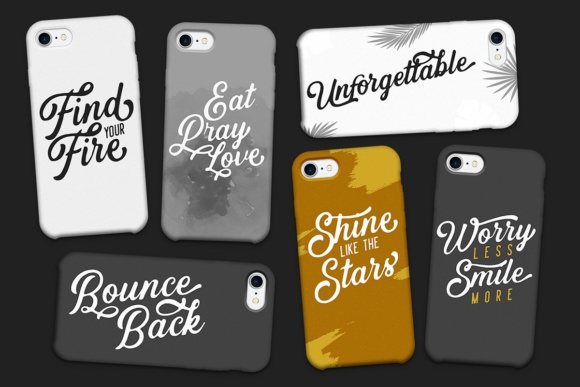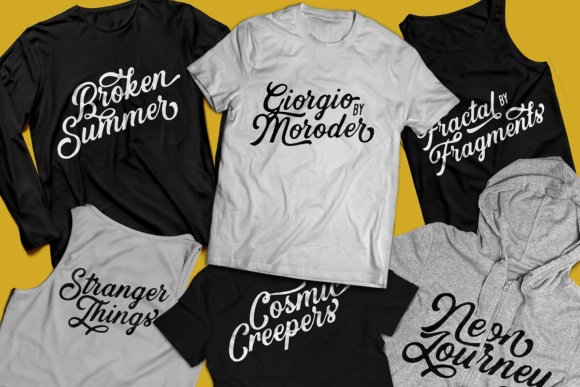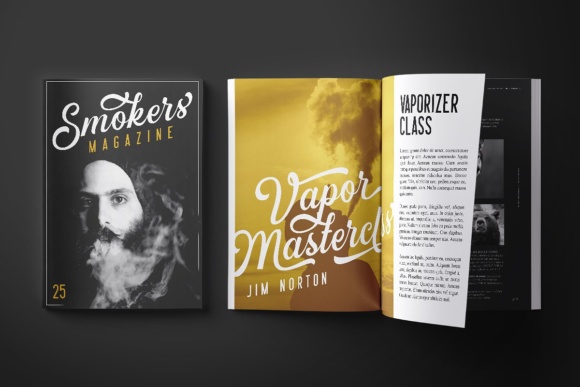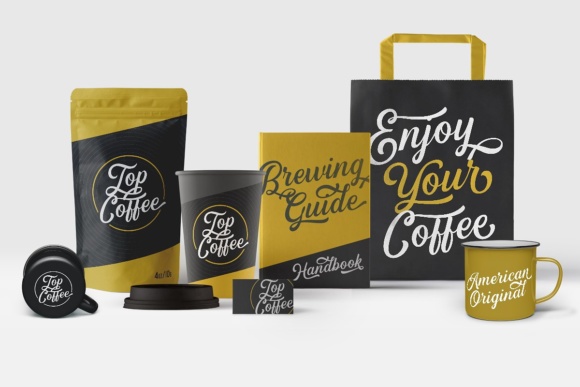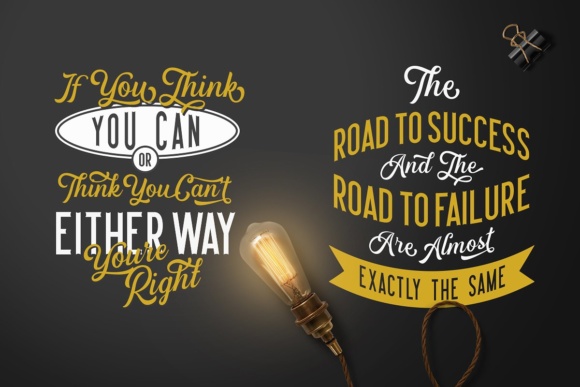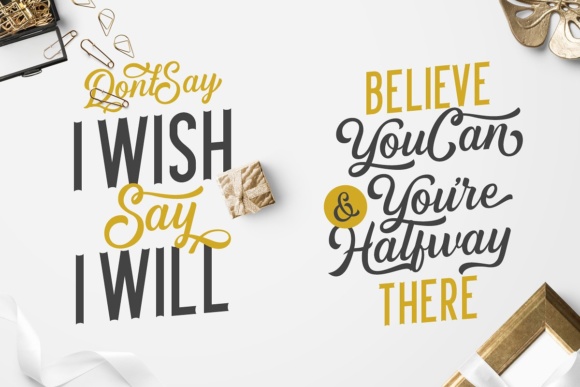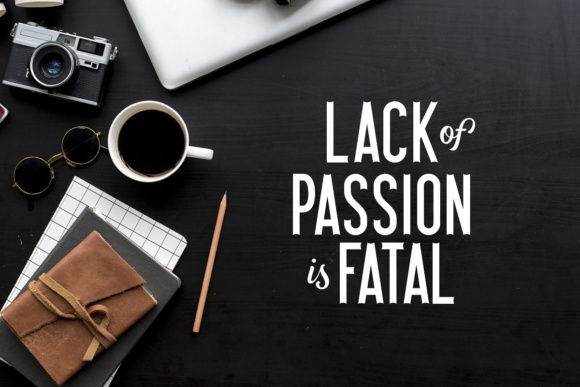
Hipsterious Font
About Hipsterious Font
Hipsterious is a casual and fun script that stands out from the crowd. It consists of two types; a regular and a rough. Perfect to be used for logos, signatures, photography, quotes, apparel designs and much more!